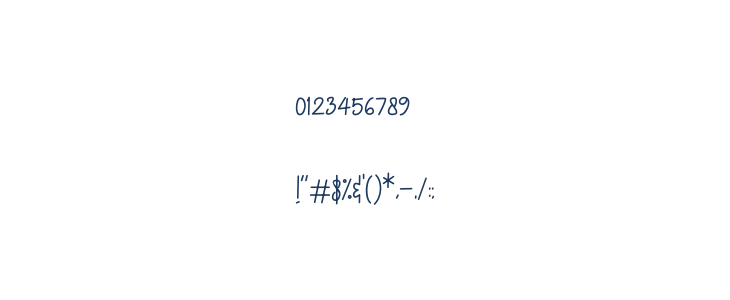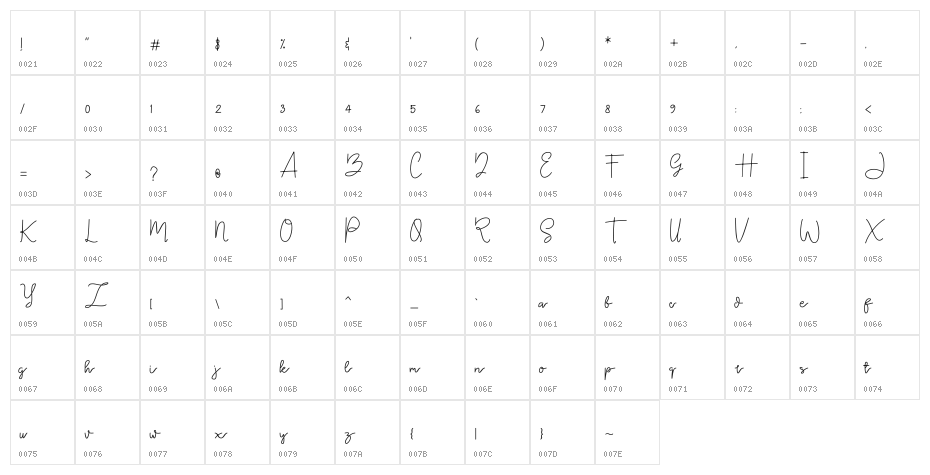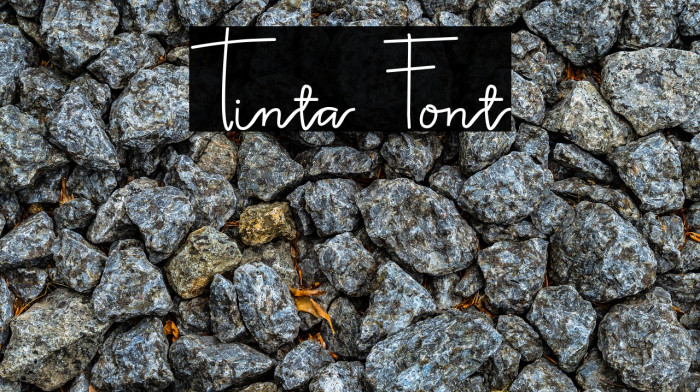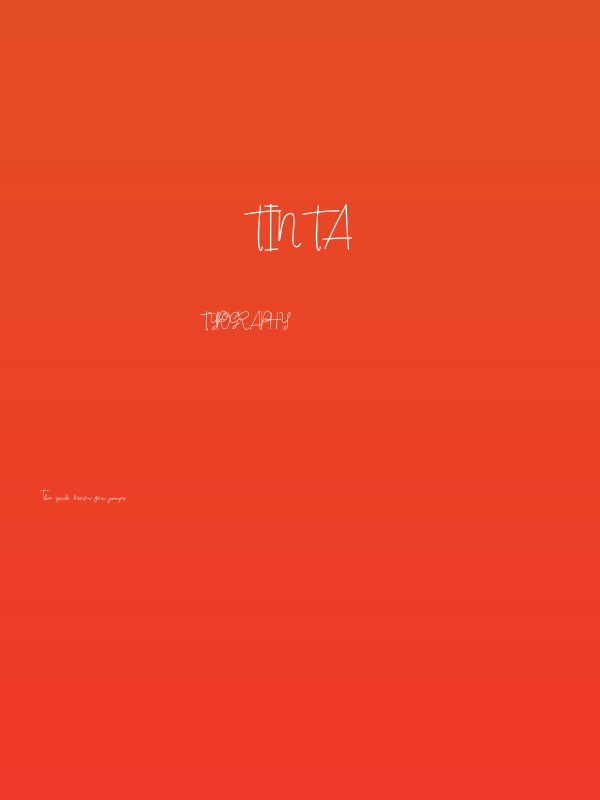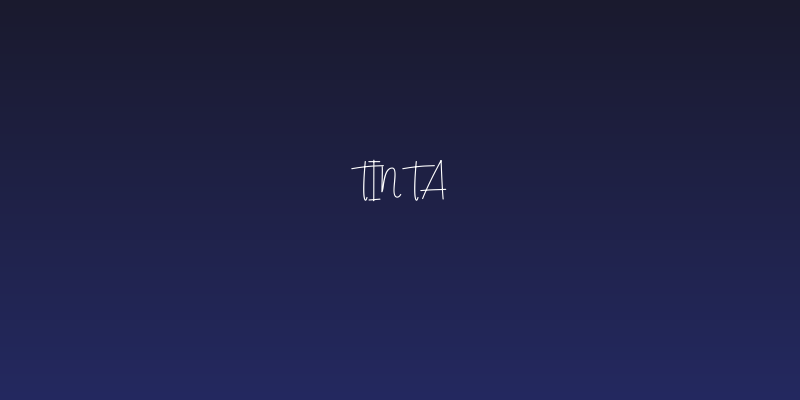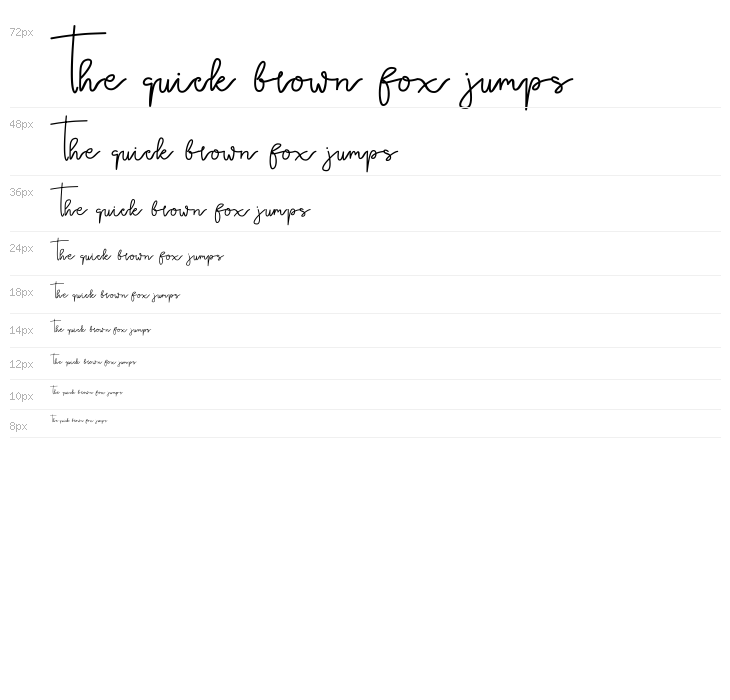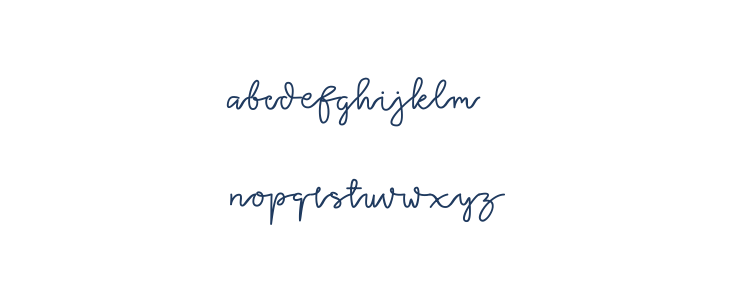
Tinta Font
Tinta Description
This font features a playful and casual handwritten style, characterized by its flowing and connected letterforms. The uppercase letters exhibit a unique, artistic flair with varying stroke widths, while the lowercase letters maintain a more consistent and smooth appearance. The numerals and special characters are crafted to match the overall whimsical aesthetic, making them suitable for creative and informal applications. The font's design is both approachable and stylish, lending itself well to projects that require a personal touch. Its legibility is enhanced by the moderate spacing between characters, ensuring readability without sacrificing its artistic qualities.
| Proposed Projects | Ideal for greeting cards, invitations, personal branding, and creative social media graphics. |